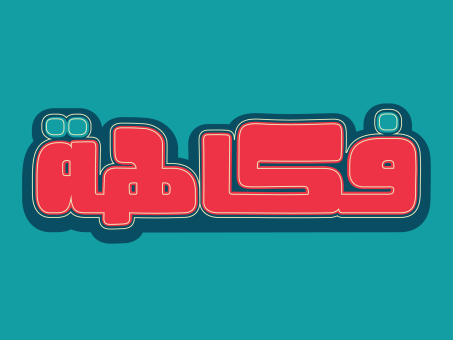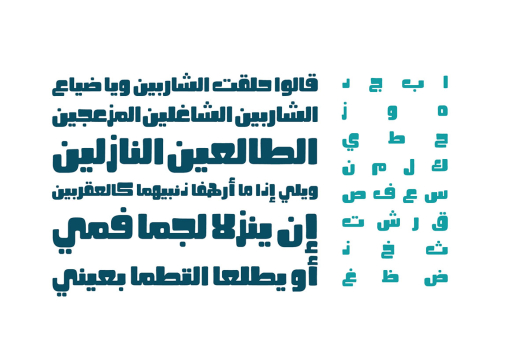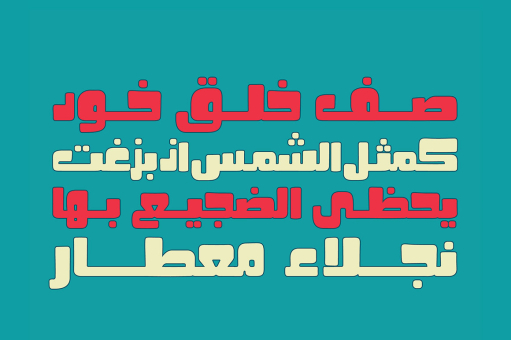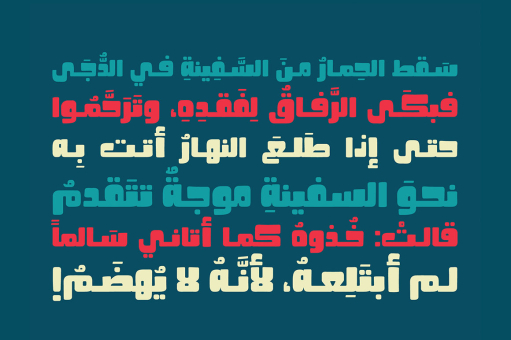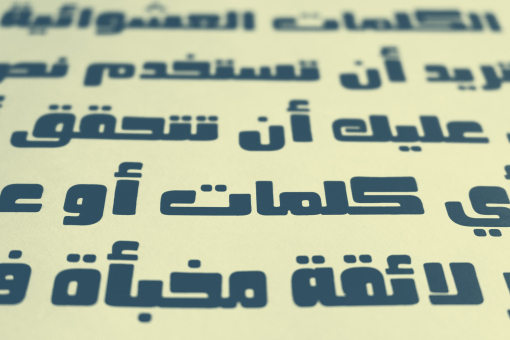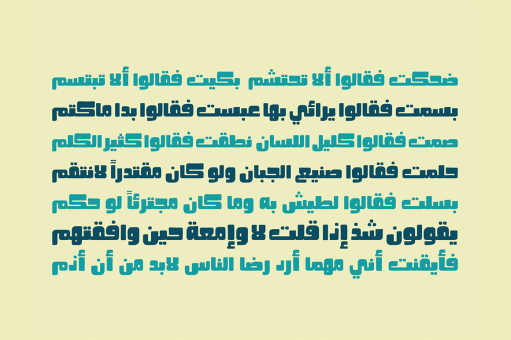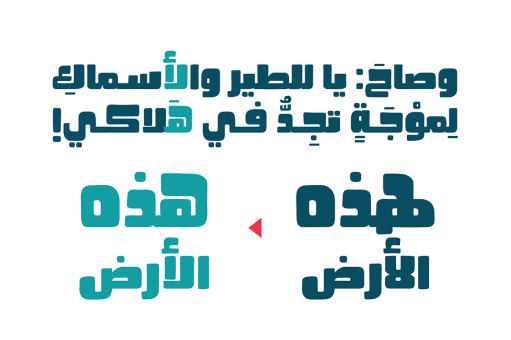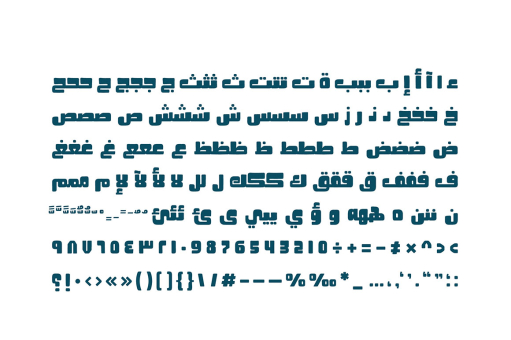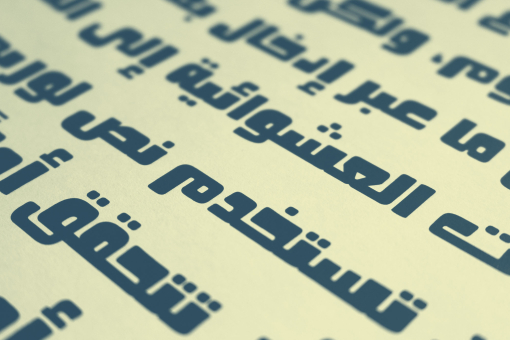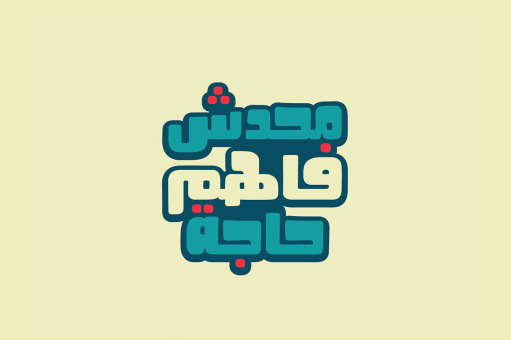
Fokaha
Fokaha is the Arabic word for Humour. Fokaha is an Arabic display font with a unique geometric structure that reflects a humorous mood. It suits various range of applications including print, web and advertising.